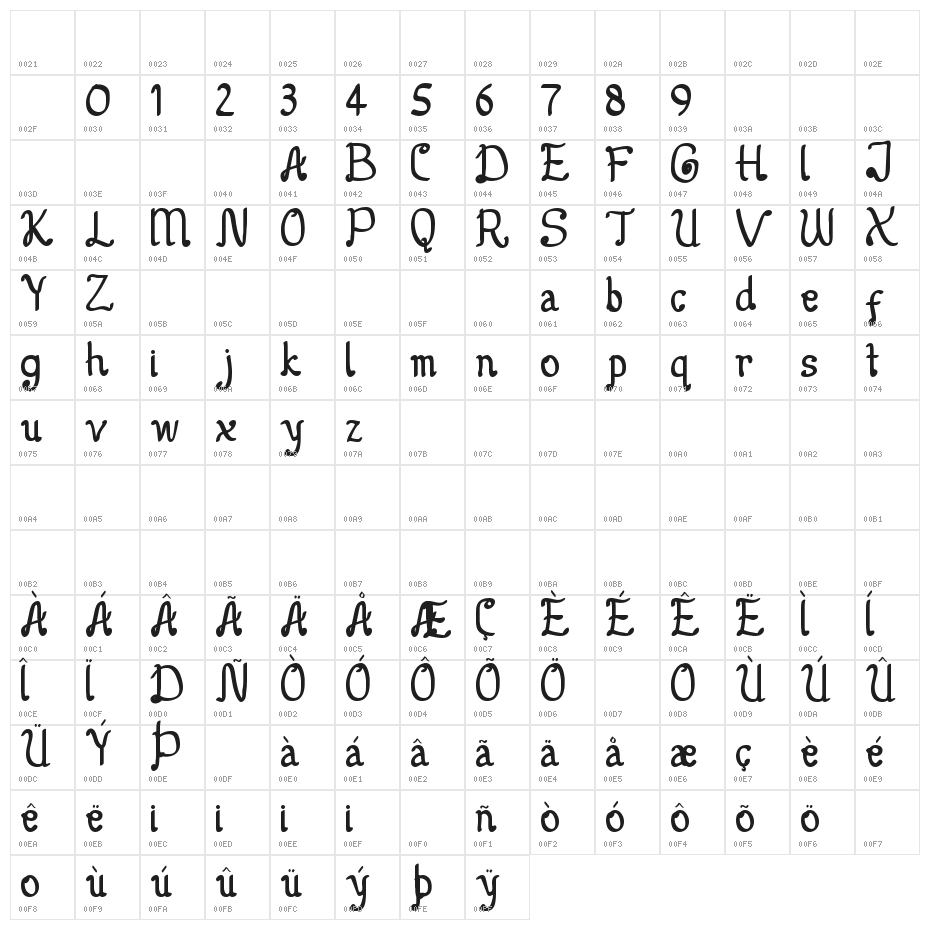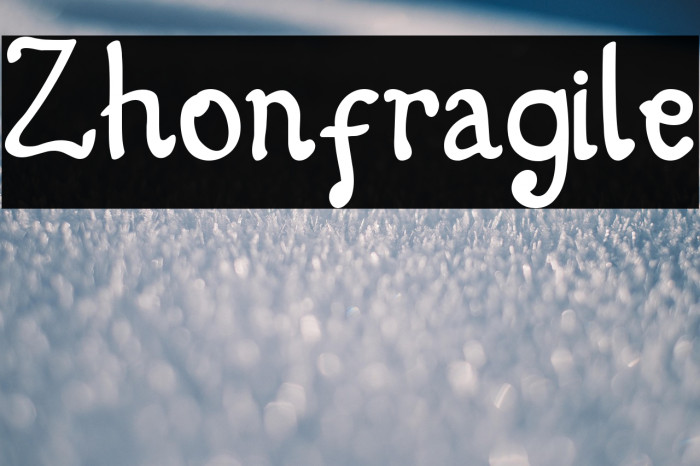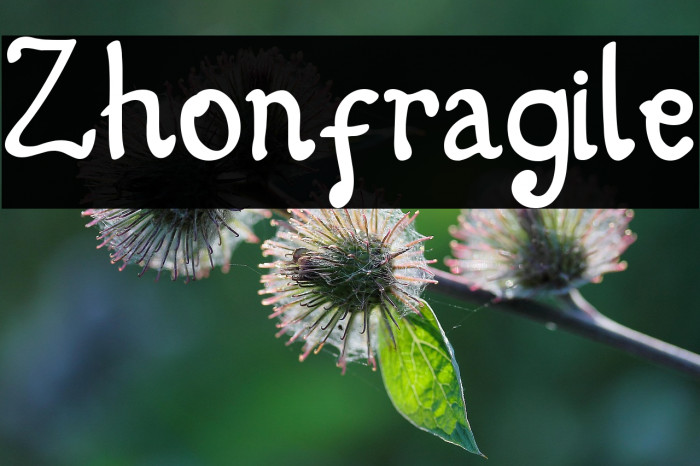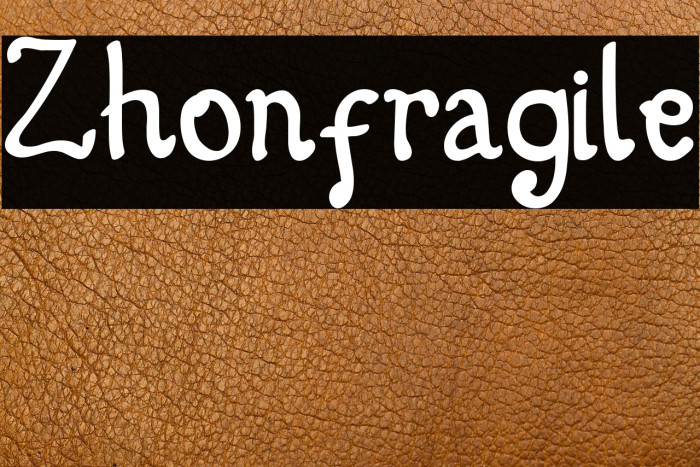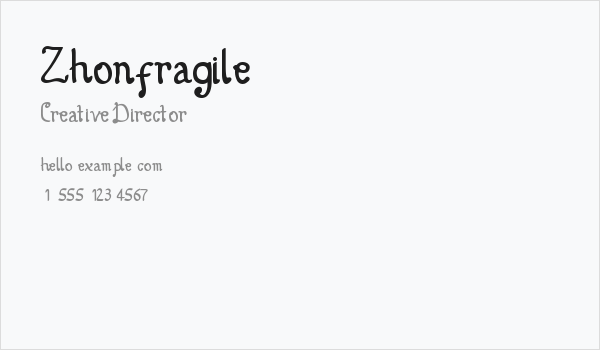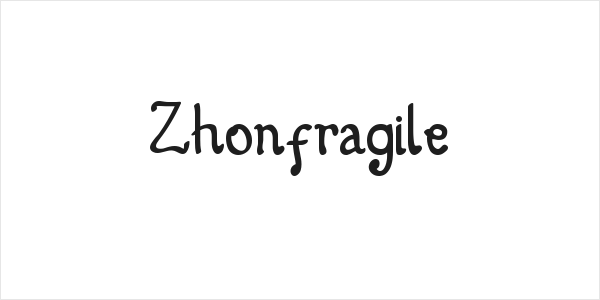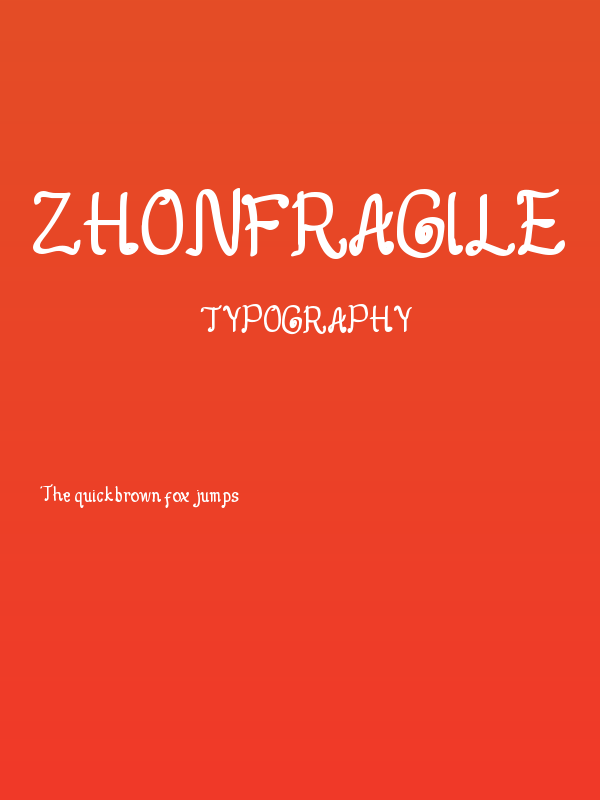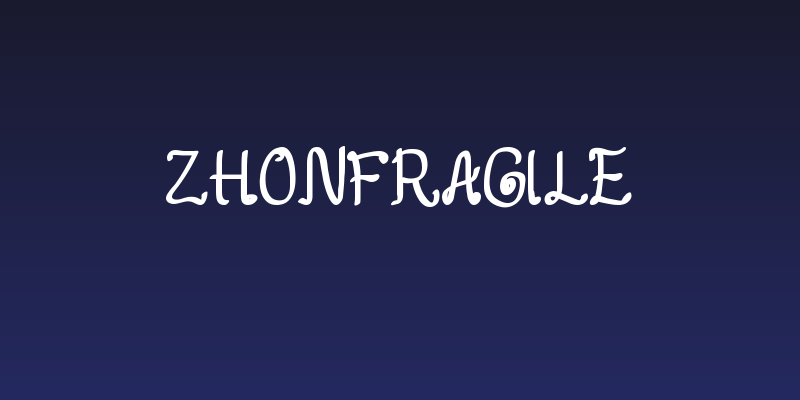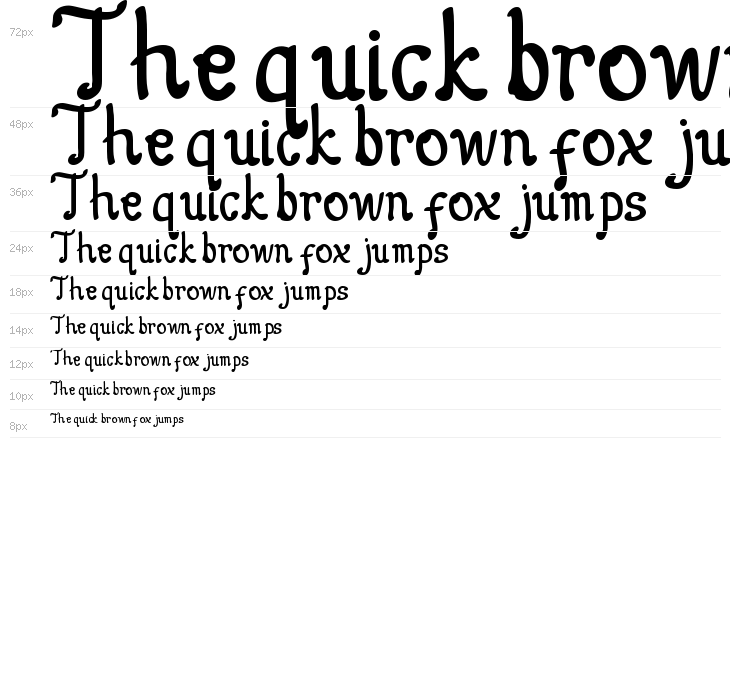
Zhonfragile Font
Zhonfragile Description
This font features a playful and whimsical design with a handwritten style. The characters are rounded and slightly irregular, giving them a friendly and approachable appearance. The uppercase letters are bold and prominent, while the lowercase letters maintain a consistent flow with a slight tilt, adding to the casual feel. The numbers are well-integrated with the alphabet, maintaining the same playful style. Special characters are creatively designed, fitting seamlessly with the overall aesthetic. The font's unique character is enhanced by its medium contrast in stroke thickness, providing a dynamic yet balanced look.
| Proposed Projects | Ideal for children's books, playful branding, greeting cards, and creative posters. |